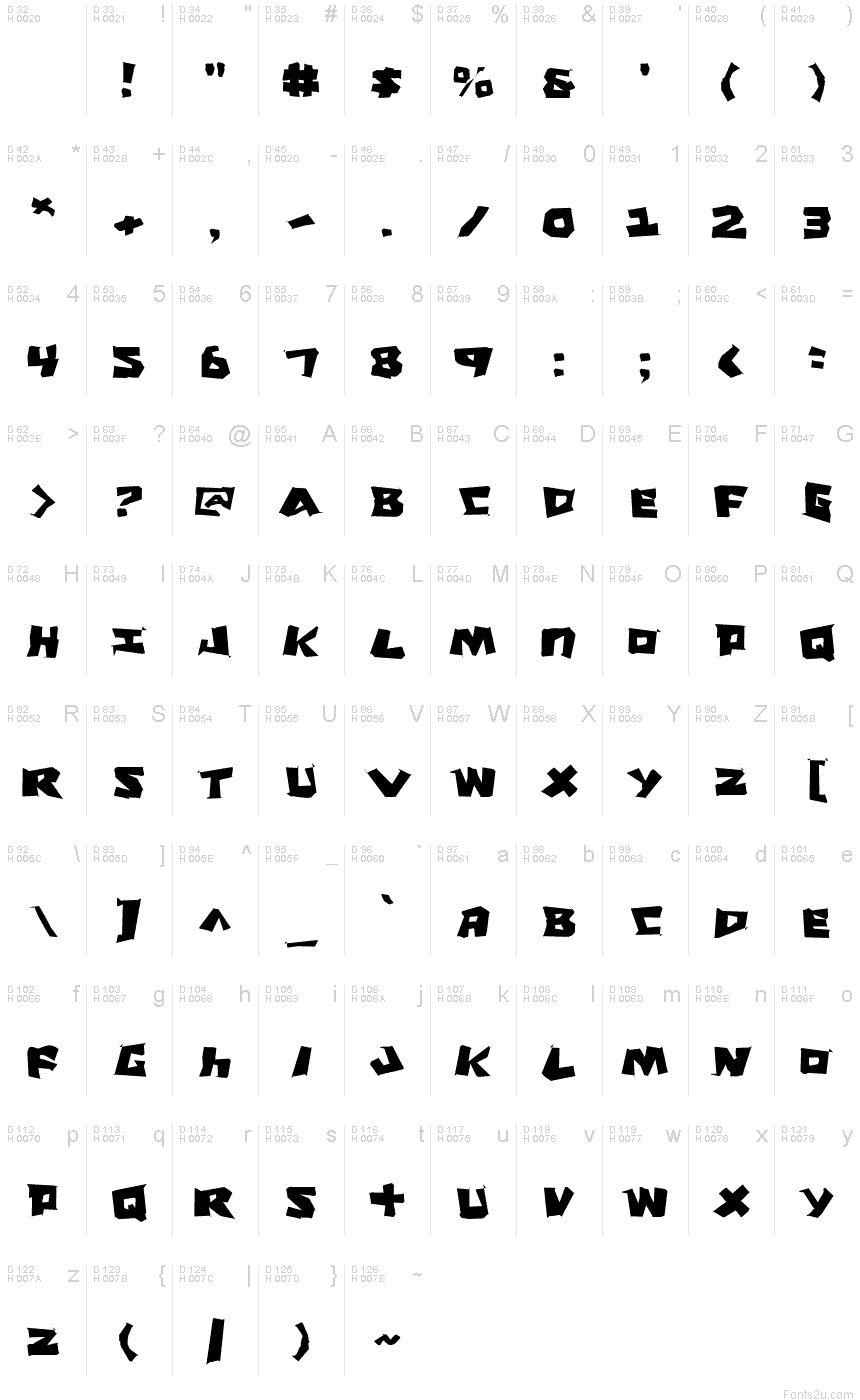
Cro-Magnum Jagged
Cro-Magnum Jagged font by Dan Zadorozny is a free cartoon display typeface that looks carved straight out of stone. Chunky, uneven letterforms lean and wobble, with sharp, broken edges that feel like hand-chiseled rock rather than clean digital curves. Part of the Cro-Magnum family, it carries a wild, primitive energy that instantly signals “prehistoric,” “caveman,” or “rough ‘n’ tumble fun” the moment it hits the page or screen.
Using Cro-Magnum Jagged, your titles practically roar off the layout, making it a natural fit for kids’ games, prehistoric-themed logos, adventure posters, party invites, comic covers, and bold YouTube thumbnails. This free font shines at large sizes, where its jagged silhouette can really show off. For balance, pair it with a plain, rounded sans serif for body text so the chunky stone letters stay the hero of your design.